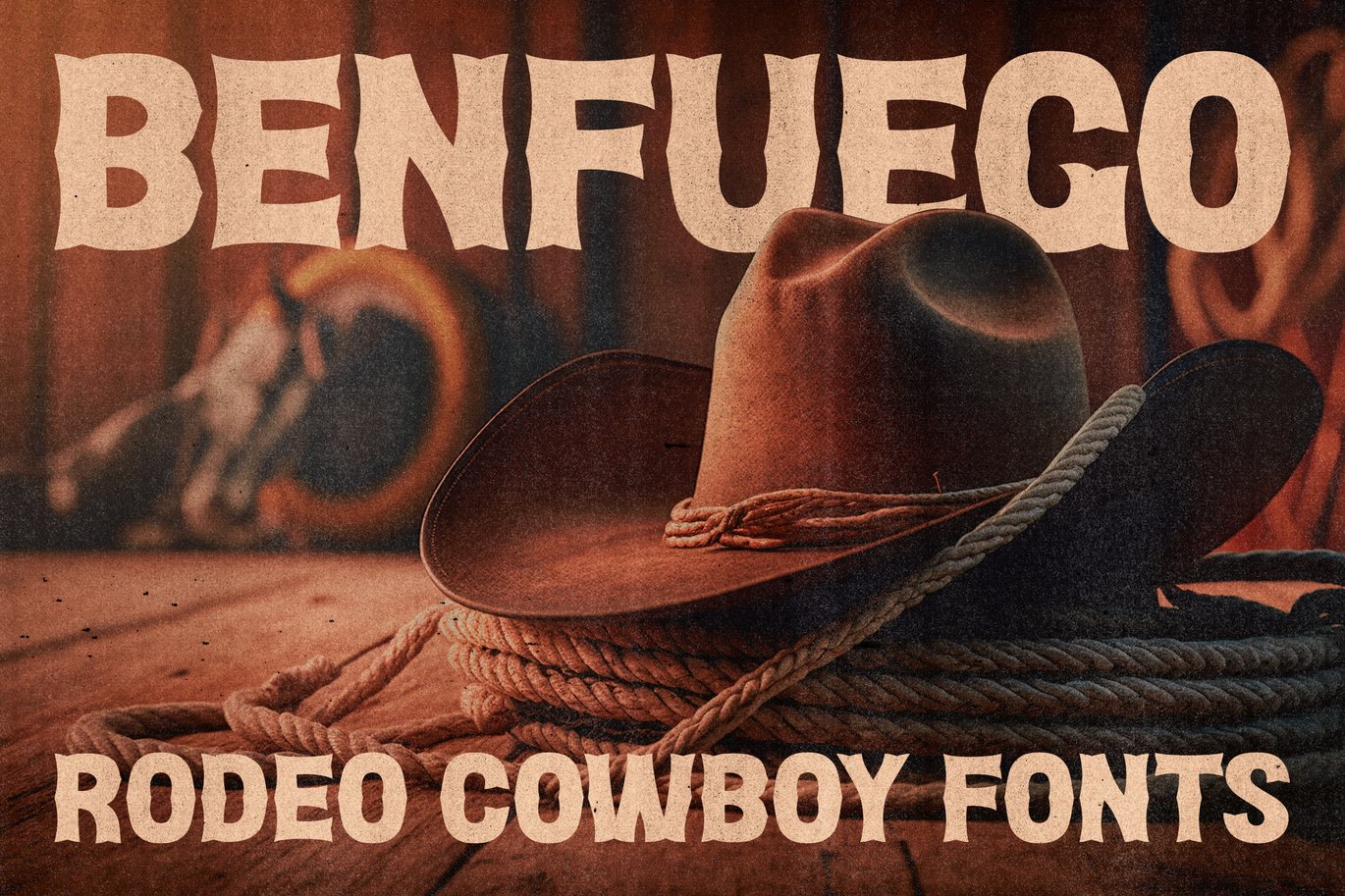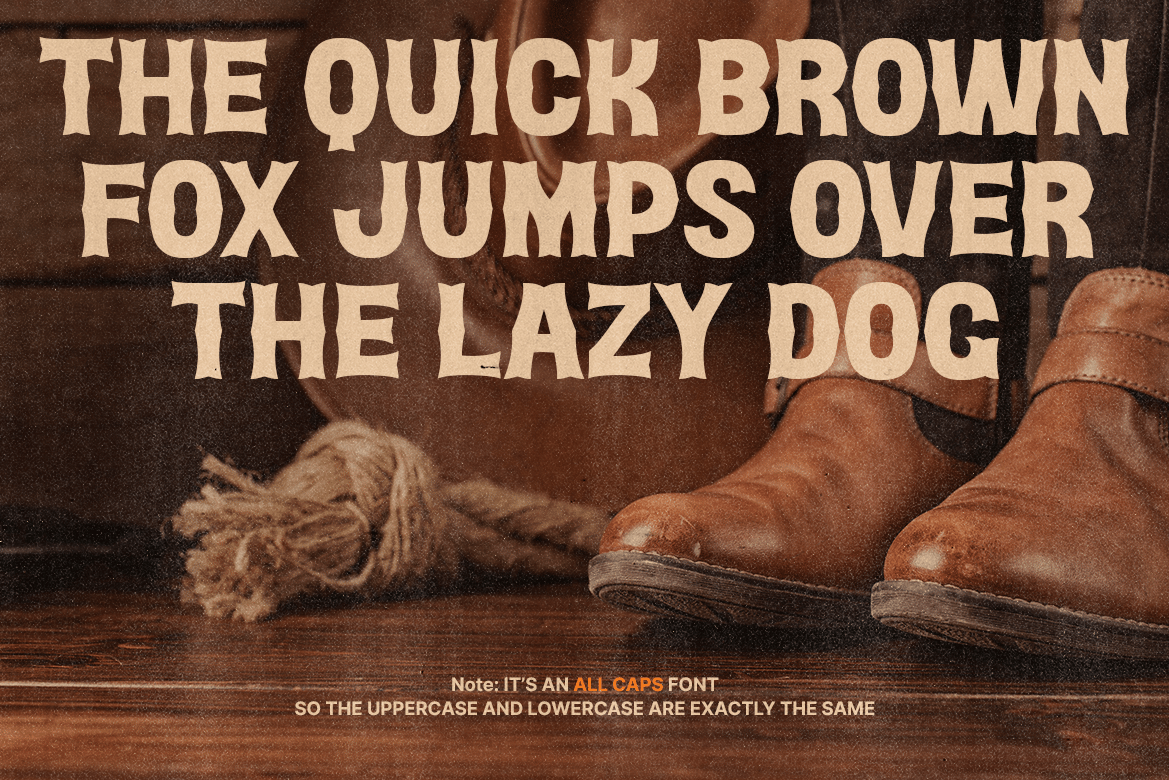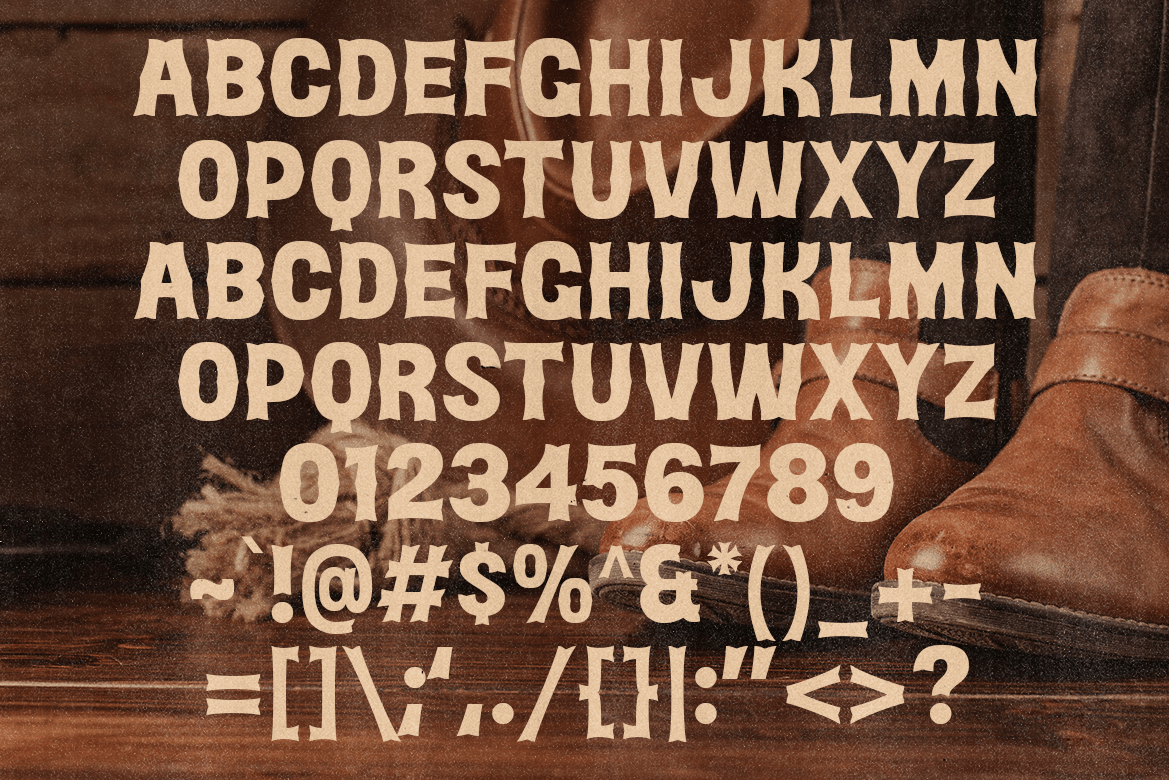
Benfuego – Rodeo Cowboy Fonts
Looking for fonts that resonate with the spirit of the Wild West? Look no further than Benfuego, remarkable rodeo-cowboy visual inspired fonts. Our meticulously crafted typefaces pay homage to the daring rodeo riders, ropers, and wranglers, bringing the thrill and grit of the Western frontier right into your designs. Saddle up your designs with the rustic elegance and untamed energy of the Wild West. Build up your creativity and wrangle those compliments with every design you create!
Our fonts capture the essence of the untamed West, featuring bold and dynamic letterforms that embody the courage and rugged spirit of rodeo cowboys. Join the rodeo typographic adventure today!